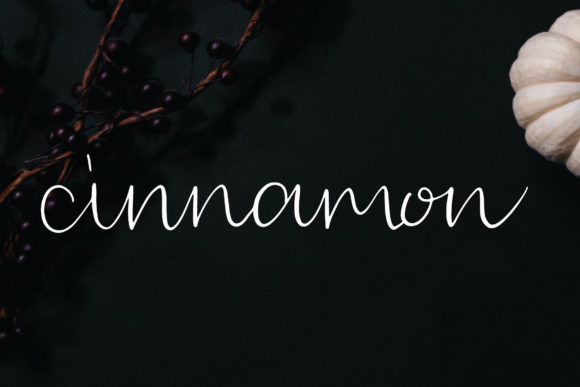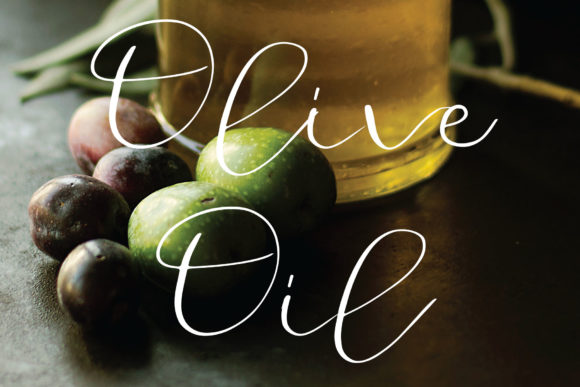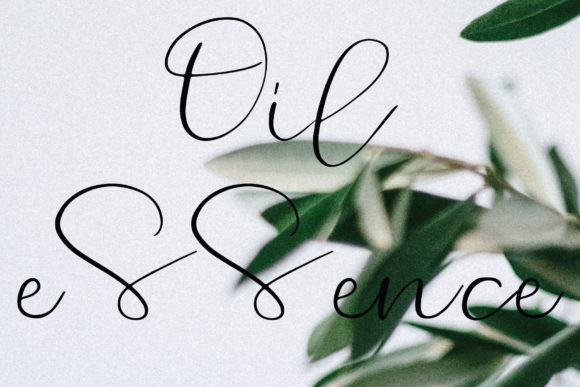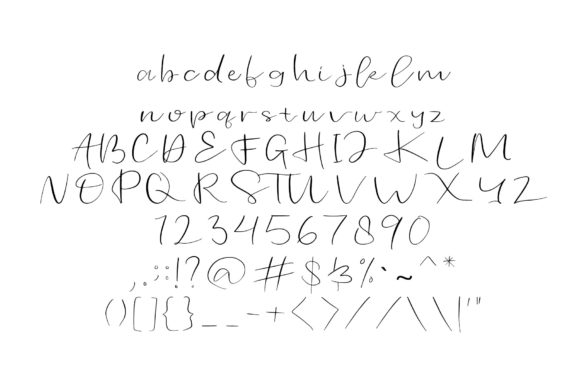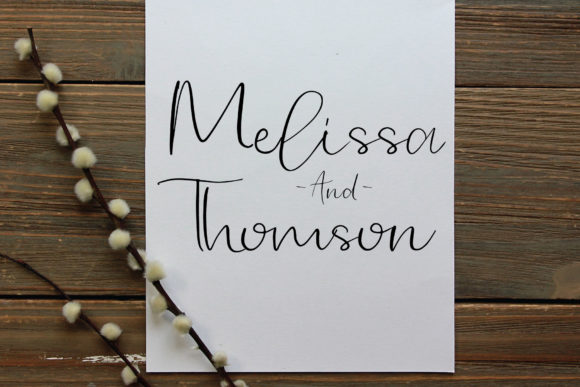
HomeScript FontsCinnamon Font Script Fonts Cinnamon Font FacebookXPinterestWhatsApp Cinnamon Font Poster 2 Cinnamon Font Poster 3 Cinnamon Font Poster 4 Cinnamon Font Poster 5 About Cinnamon Font A classic script font, Cinnamon is the ideal addition to any crafting collection! DOWNLOAD NOW People also explored Hagen Kids Jellystick Font Grand Jewel Font Made with Stars Font Winther Script Font Cebigej Font Sewing Together Font Sadstory Font Handbill Grated Cheese Font 364 0 TagsCinnamon Font Previous articleDevandra FontNext articleEinstein Font LEAVE A REPLY Cancel reply Comment: Please enter your comment! Name:* Please enter your name here Email:* You have entered an incorrect email address! Please enter your email address here Website: Save my name, email, and website in this browser for the next time I comment. Personal Use Free Vuldo Personal Use Free Read more about this font Septhine Personal Use Free Read more about this font Jurnal Personal Use Free Read more about this font Marthissa Personal Use Free Read more about this font BLOG To increase your work productivity, choose the most readable fonts. In today's fast-paced work environment, where digital communication and information consumption are integral to our daily routines, the choice of fonts can significantly impact... Exploring Font Trends How to Install and Use Fonts on Windows, macOS, and Web Projects Where to Buy American Fonts Online in 2024